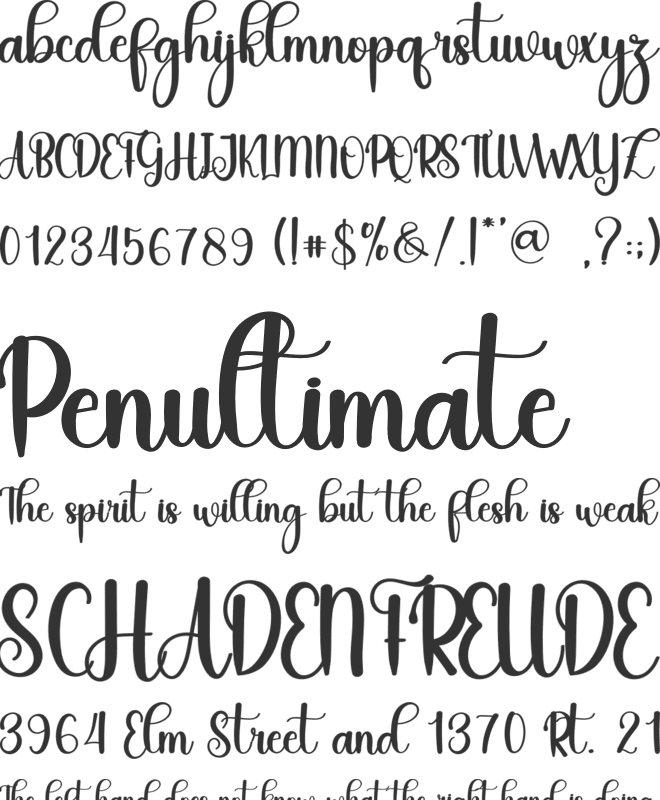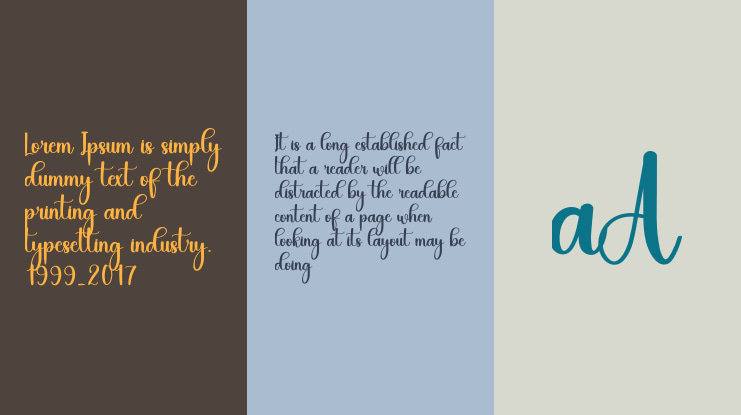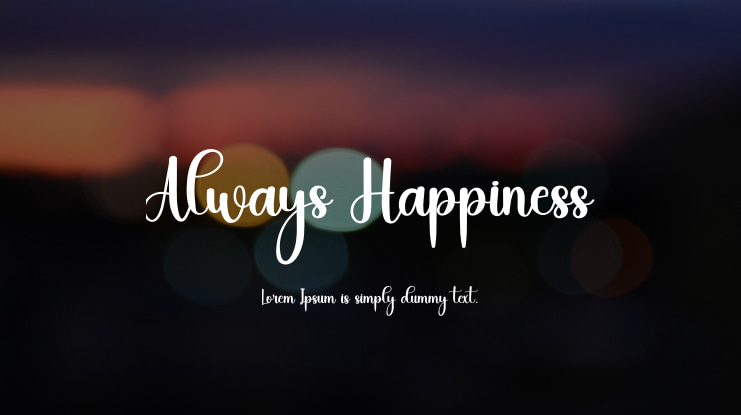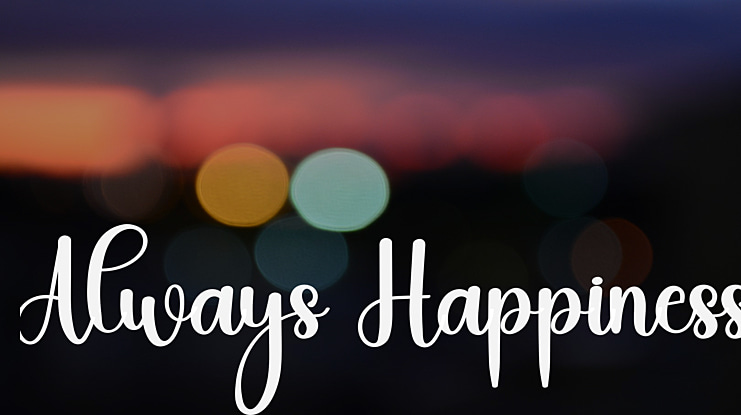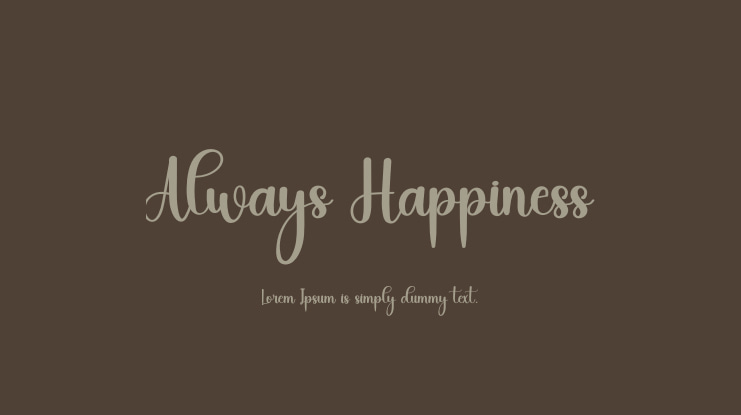
Always Happiness Font
This is a relaxed and beautiful paint brush handwritten font. It can be used for various purposes such as logos, wedding invitations, headings, t-shirts, letterhead, signage, labels, news, posters, badges and so much more.